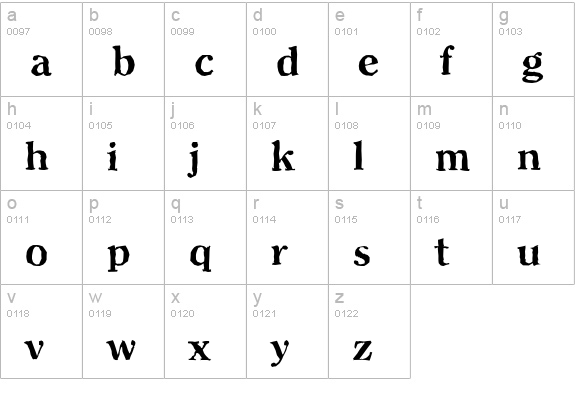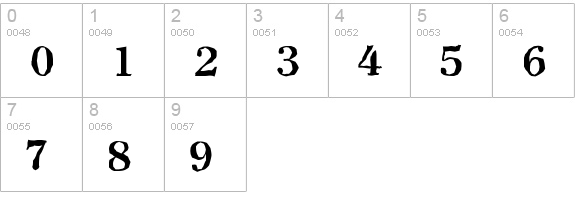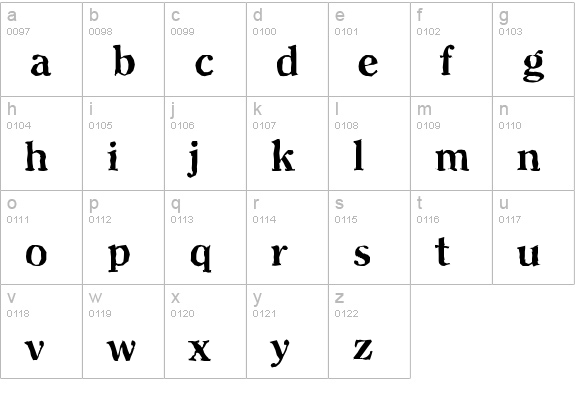
ClearfaceAntique-Bold Font Details
ClearfaceAntique-Bold is a strong, high-contrast variant in the ClearfaceAntique typeface family \xE2\x80\x94 well suited to headlines, attention-grabbing titles, and strong calls-to-action.
ClearfaceAntique-Bold is a classic and timeless font that exudes elegance and sophistication. Its bold and striking appearance makes it perfect for headlines, titles, and other attention-grabbing design elements. The clean lines and intricate details of this font give it a distinct and polished look that is sure to make your projects stand out. And the best part? ClearfaceAntique-Bold is available for free download at FontsMarket.com. This means you can easily add this beautiful font to your collection without any cost. Whether you're working on a professional project or simply looking to enhance your personal designs, ClearfaceAntique-Bold is a versatile and stylish font that is sure to impress. Download it today and elevate your typography game to the next level!